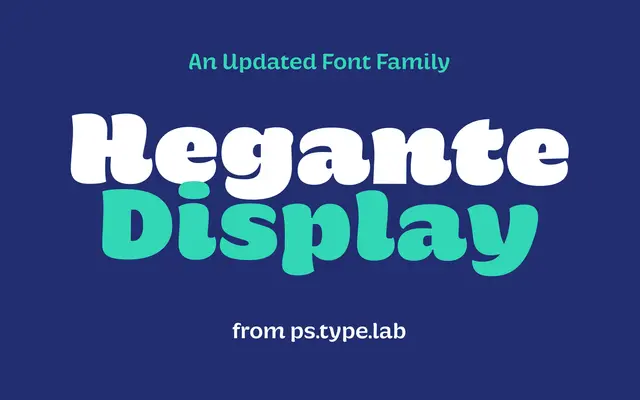
Hegante Display
A brush-influenced display family available in six weights and as a variable font, with OpenType alternates for single-storey a and g.
Built on the foundations of the original Hegante, this Display cut arrives with six weights from Regular to Black and a variable font spanning the full weight axis. Brush influences lend the letterforms energy and personality across the range, while OpenType features including flip-top alternatives and single-storey a and g offer typographic flexibility. Available through Adobe Fonts as well as direct purchase.
Described by the foundry as influenced by the brush, with lively letterforms and a range of weights from Regular to Black; the display orientation and expressive construction place it firmly in the display category.